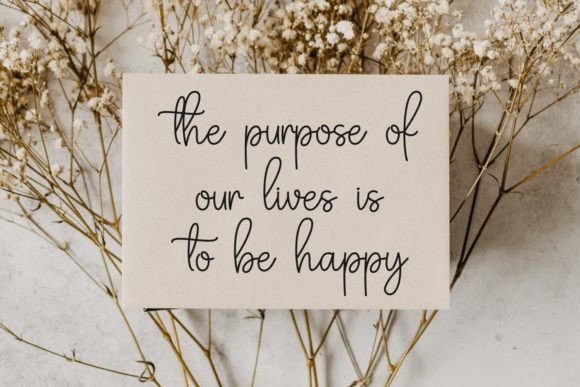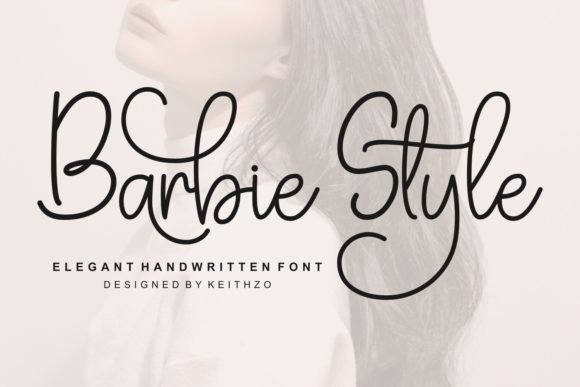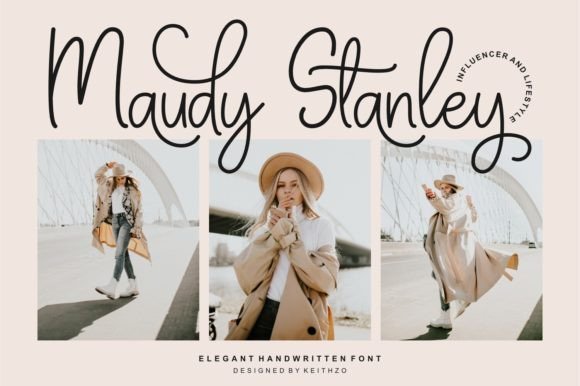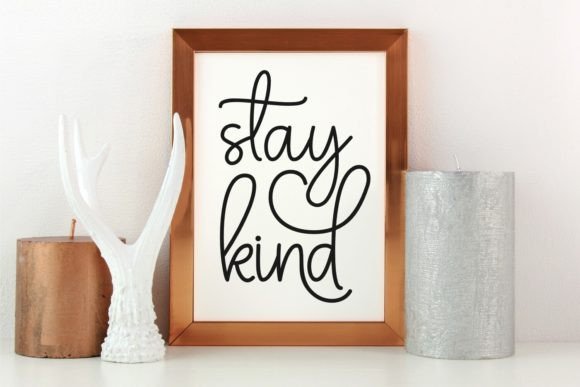
Barbie Style Font
About the Barbie Style Font
Discover the charm of Barbie Style Font. This font is a perfect blend of modern aesthetics and classic appeal. Barbie Style is a delicate and elegant handwritten font. Its distinct and well-balanced letters make this font a masterpiece. Fall in love with its incredibly versatile style and use it to create spectacular designs!